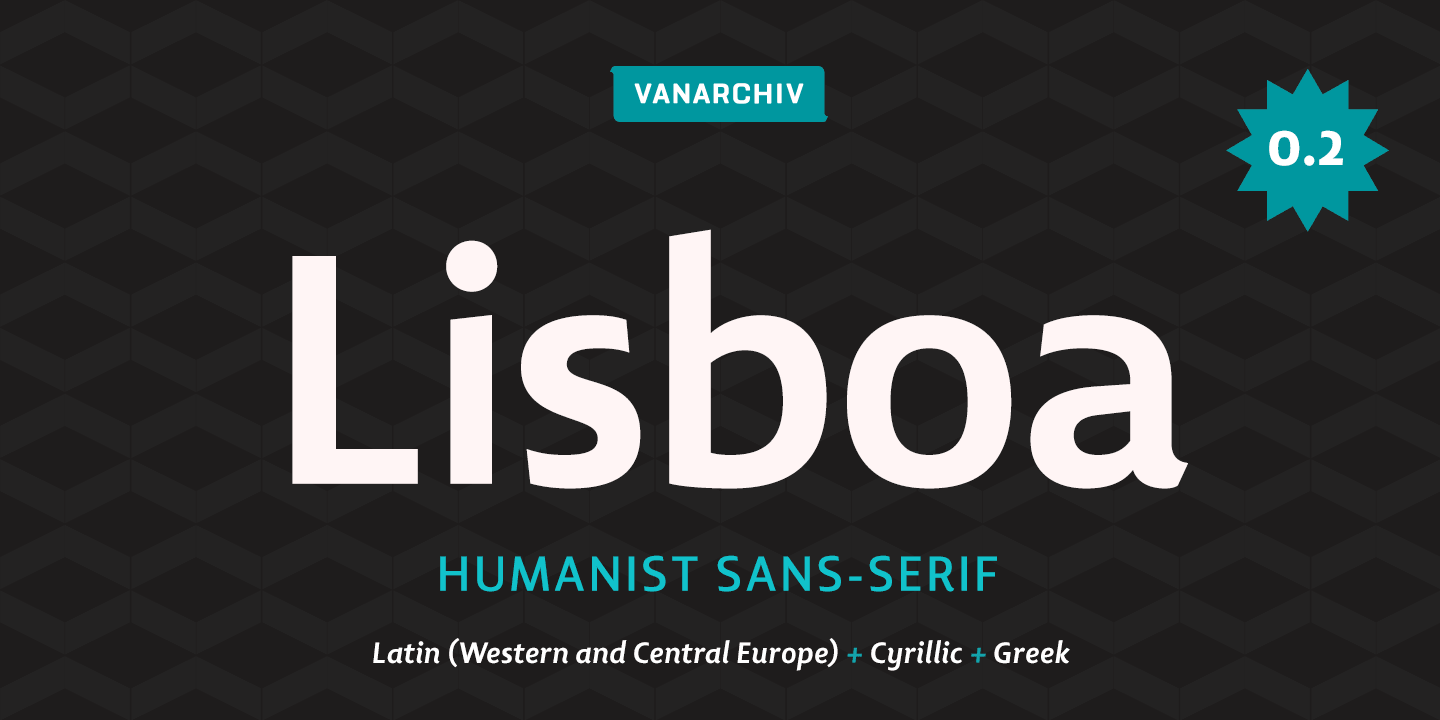
Lisboa is a sans serif font family. This typeface has sixteen styles and was published by Vanarchiv.
This humanist sans-serif typeface was exhaustively designed into a full-featured typeface family that reveals its character and distinctiveness in complex settings.
It features a large complement of ligatures, lining and old-style figures, expert characters, dingbats (arrows, brackets, and symbols for both Regular weights). Lisboa the forms of the letters are humanist, with “hooked head” terminals, the characters contains medium contrast with a left-angled stress on the strokes. The ample x-height and the openness of the letterforms make this face very legible at small sizes.
After ten years from the first version publication, this new version (0.2) is available with Latin (Western and Central Europe) Cyrillic and Greek alphabets. It was selected as one of “Our Favorite Fonts” from (Typographica) 2005.